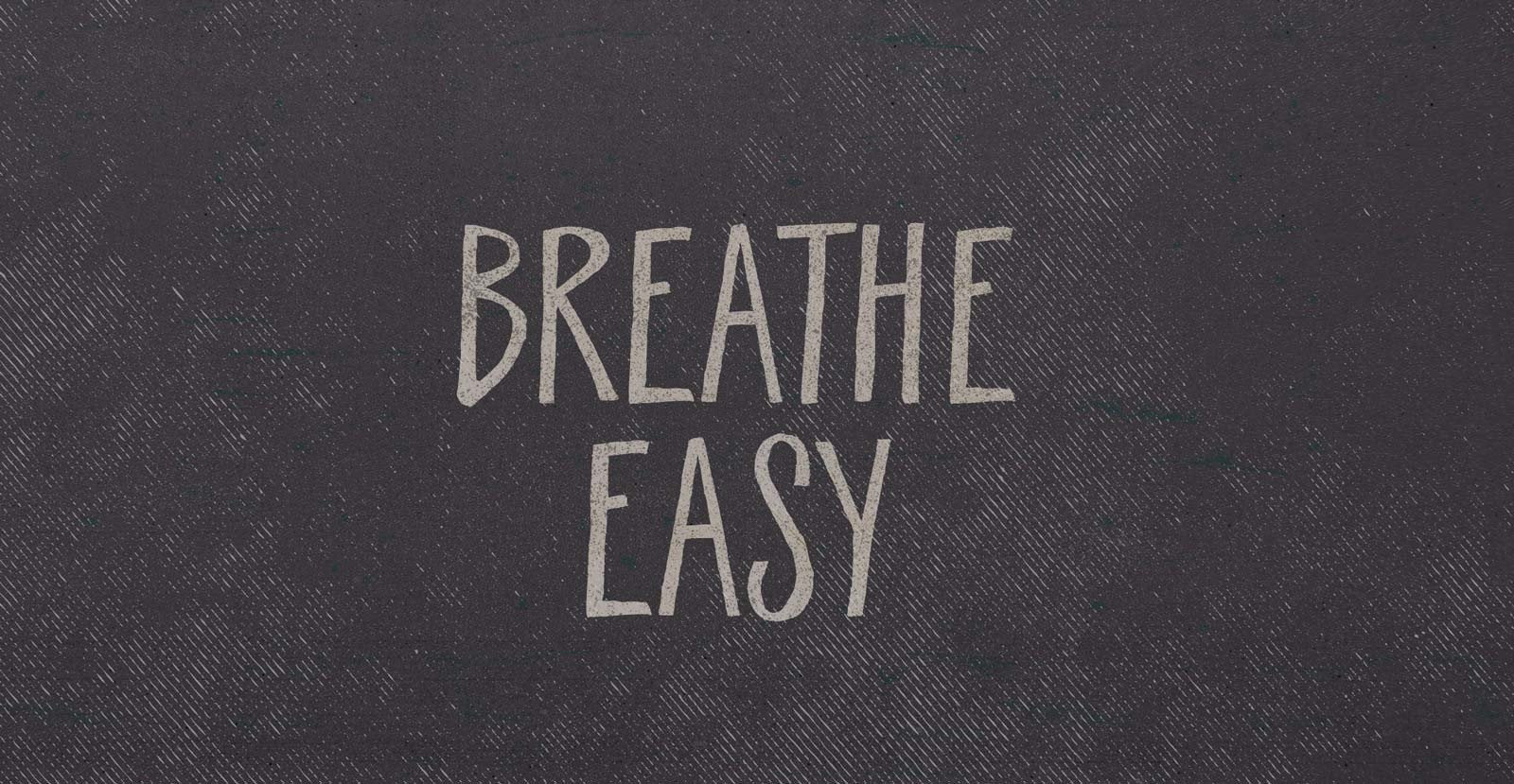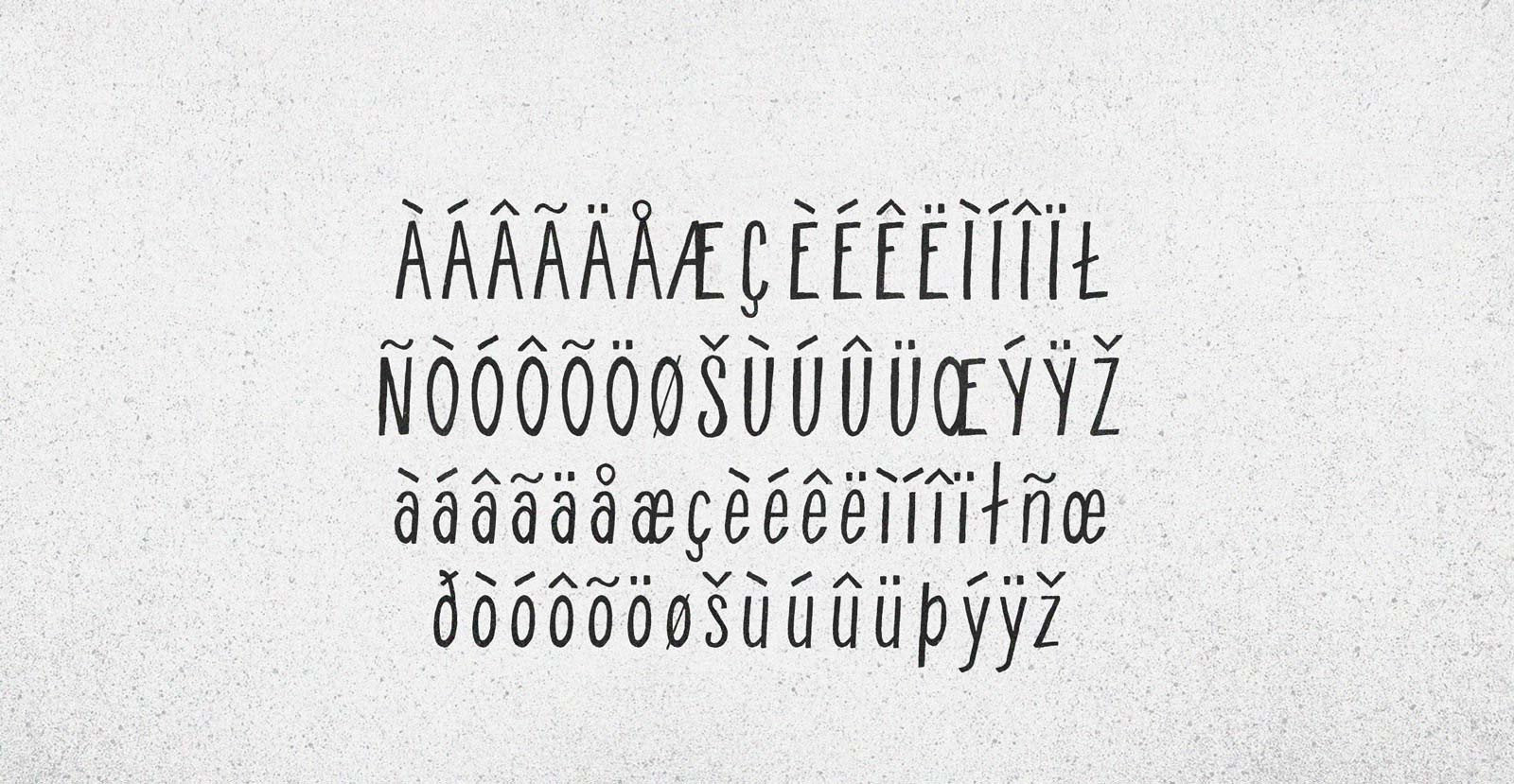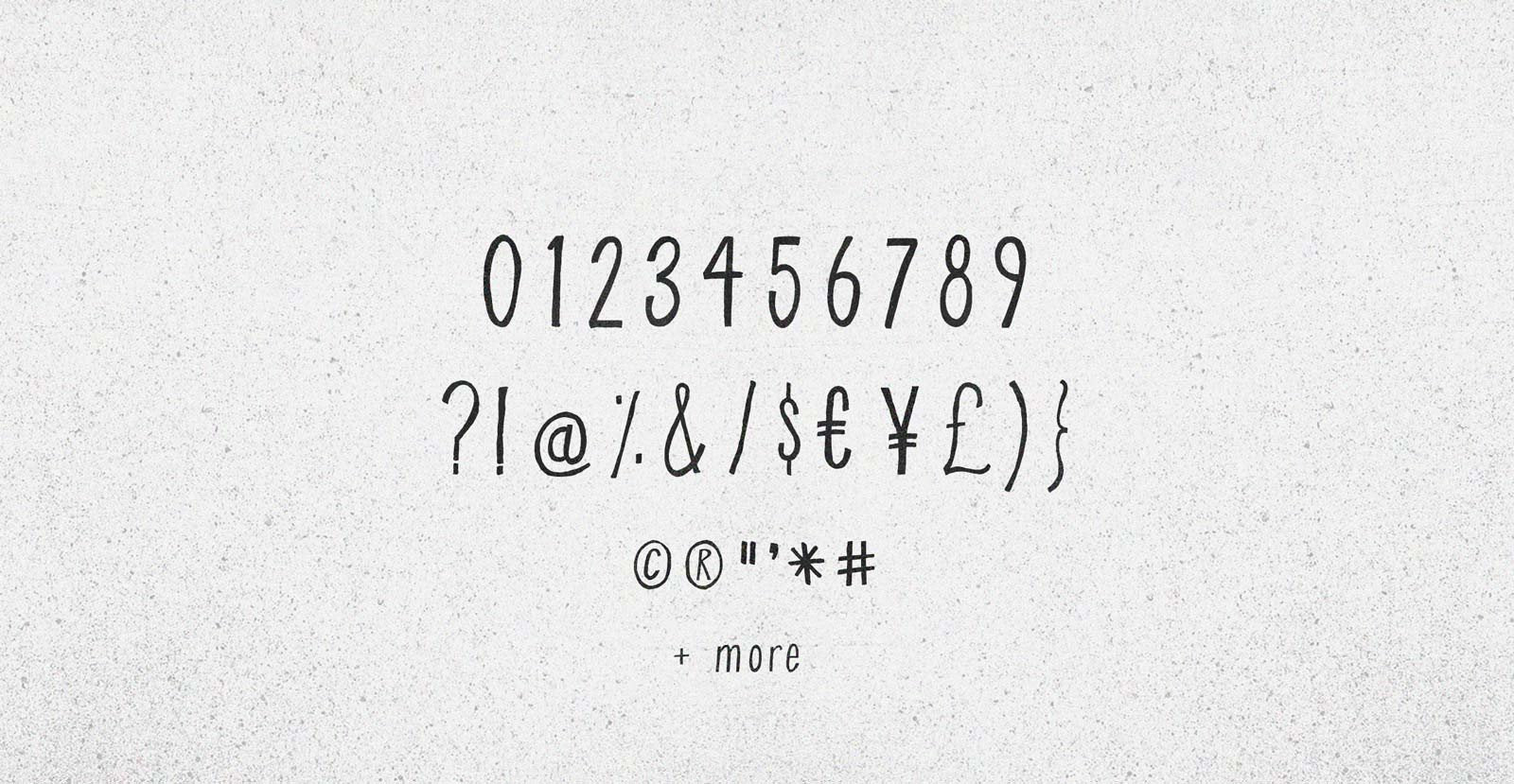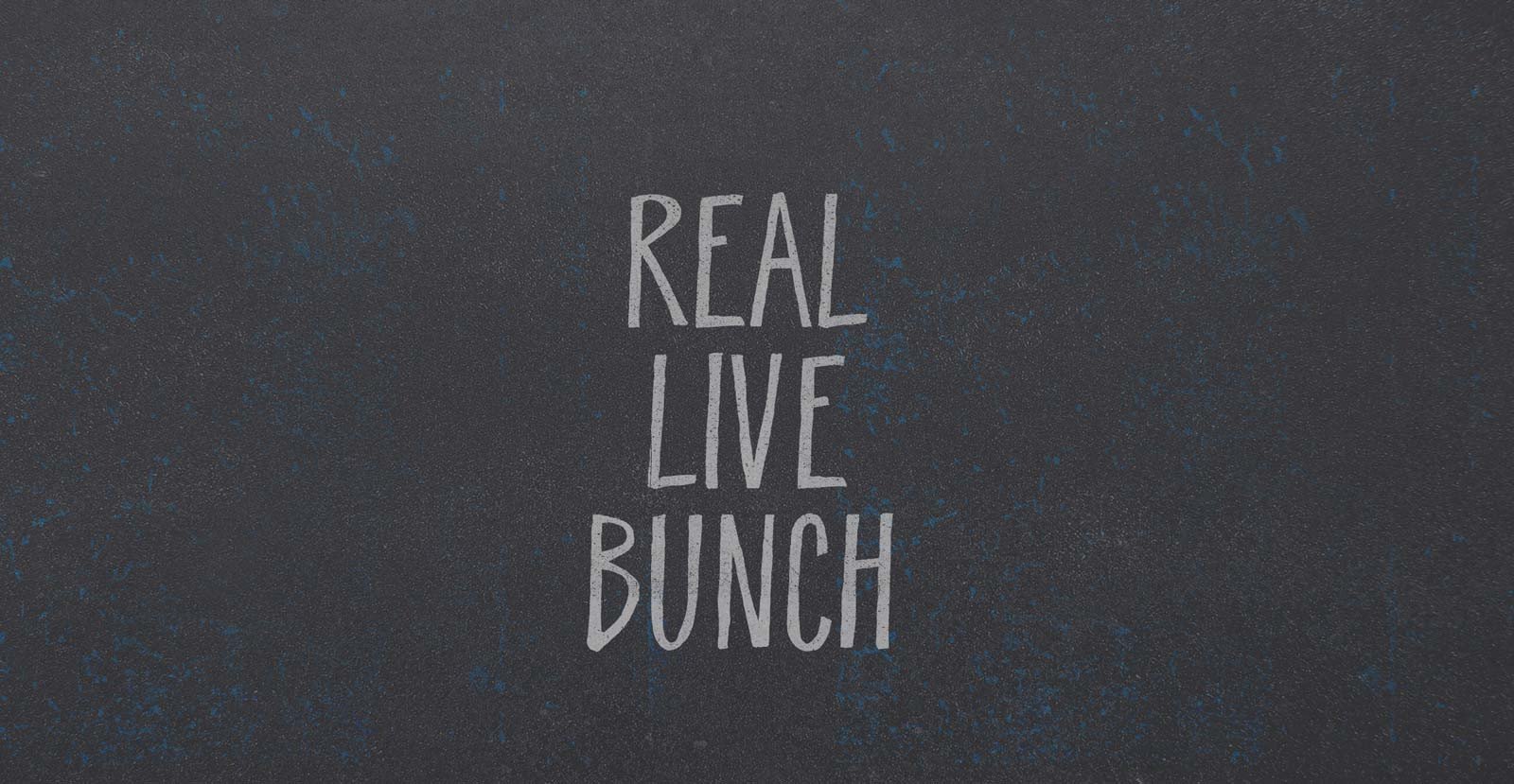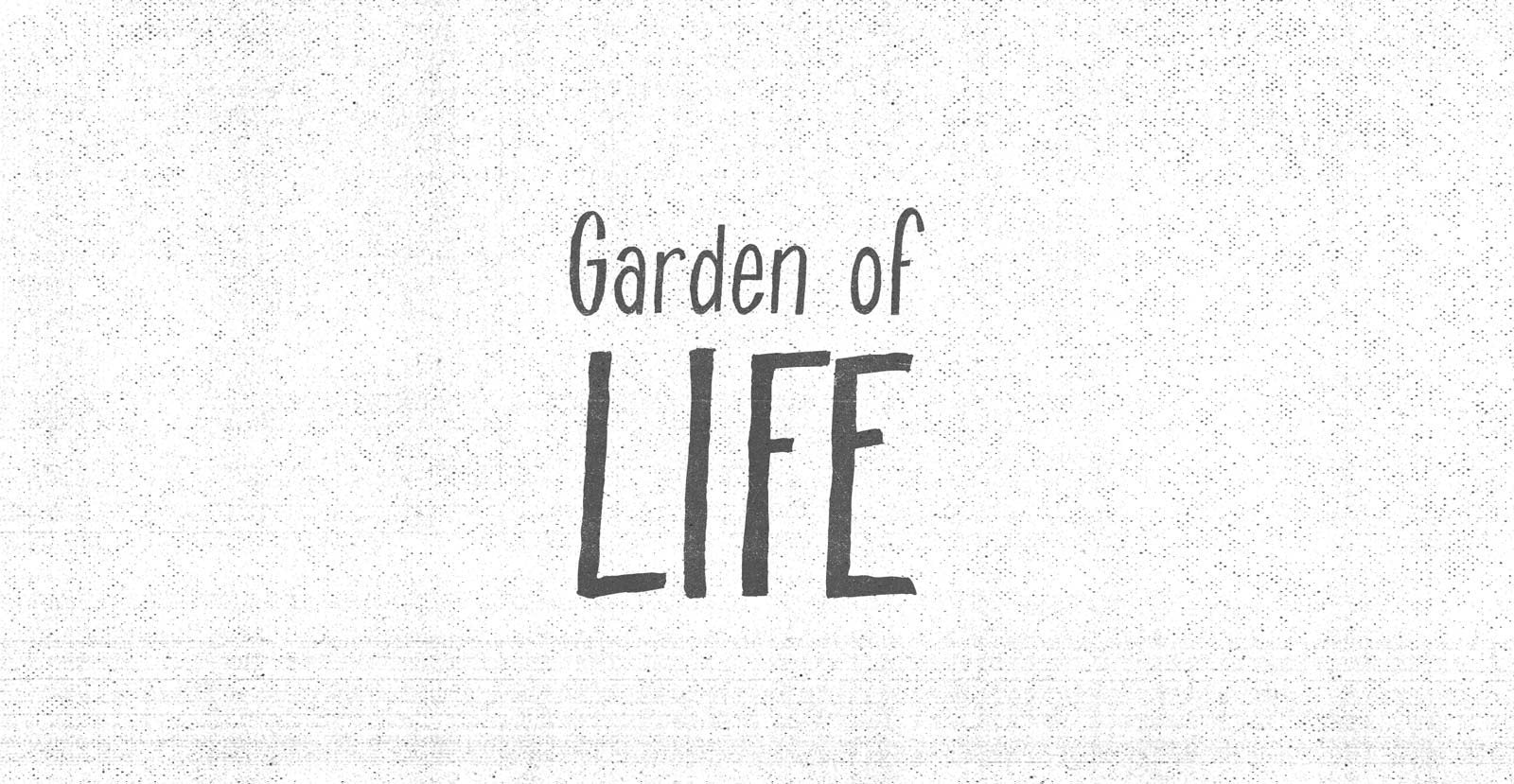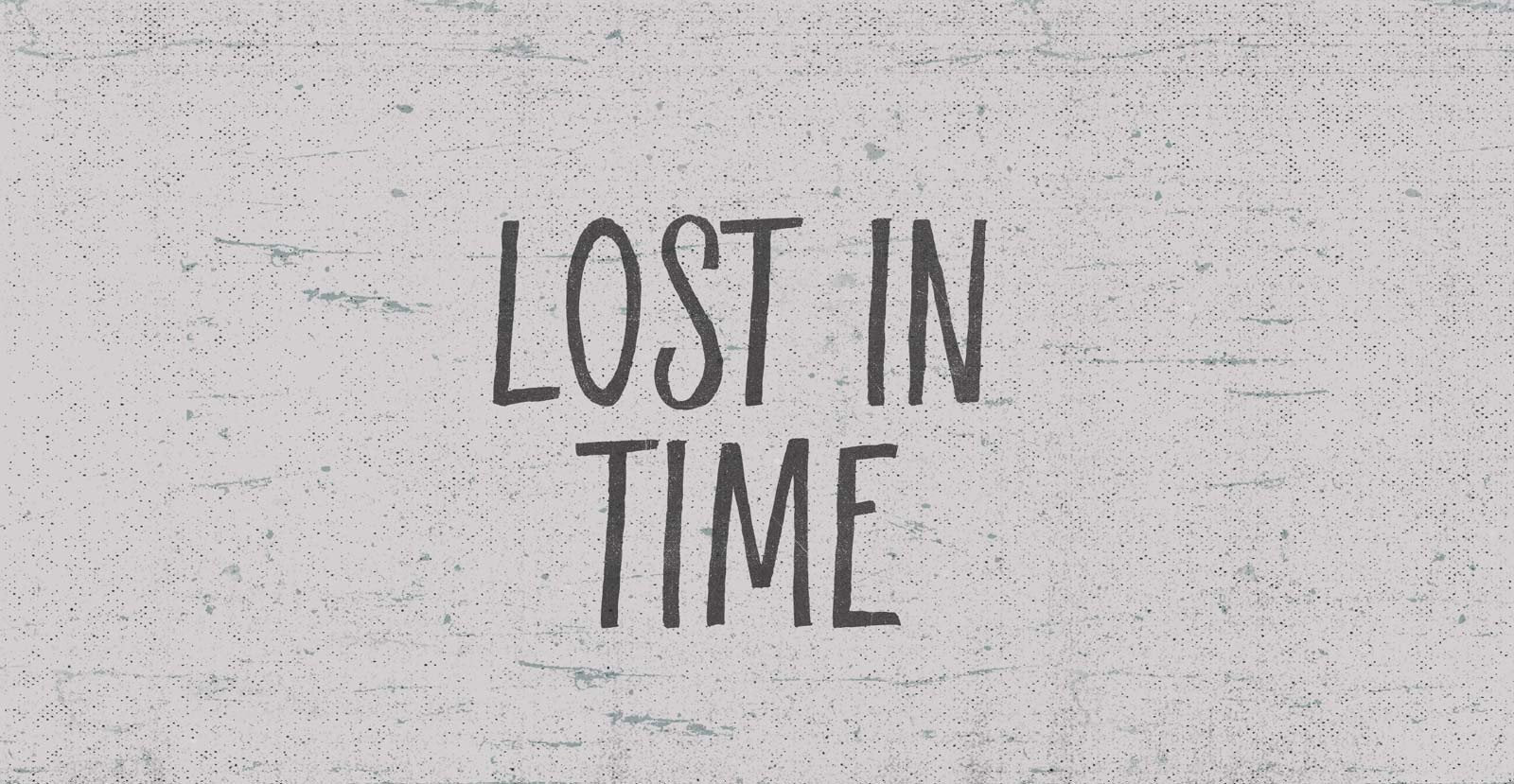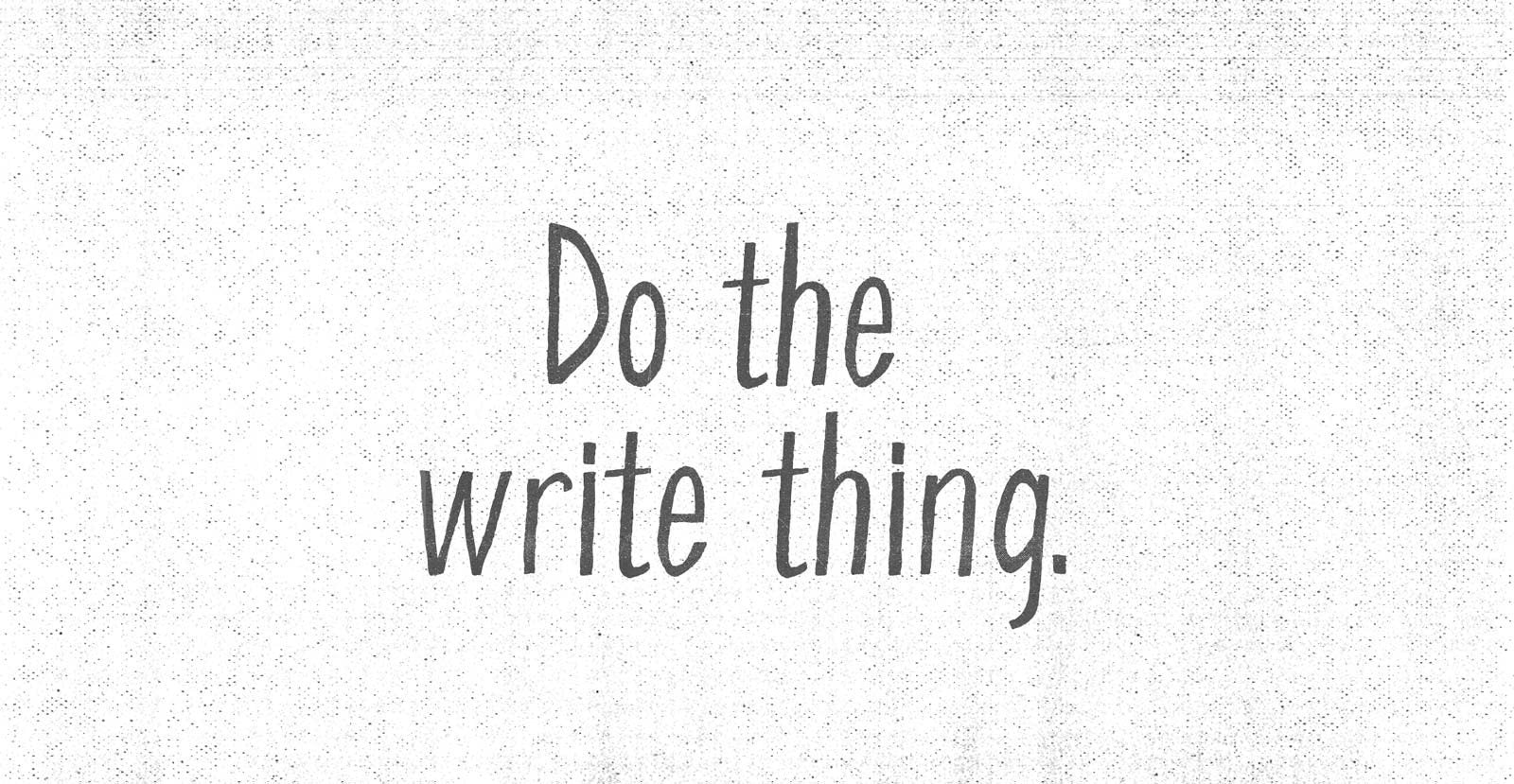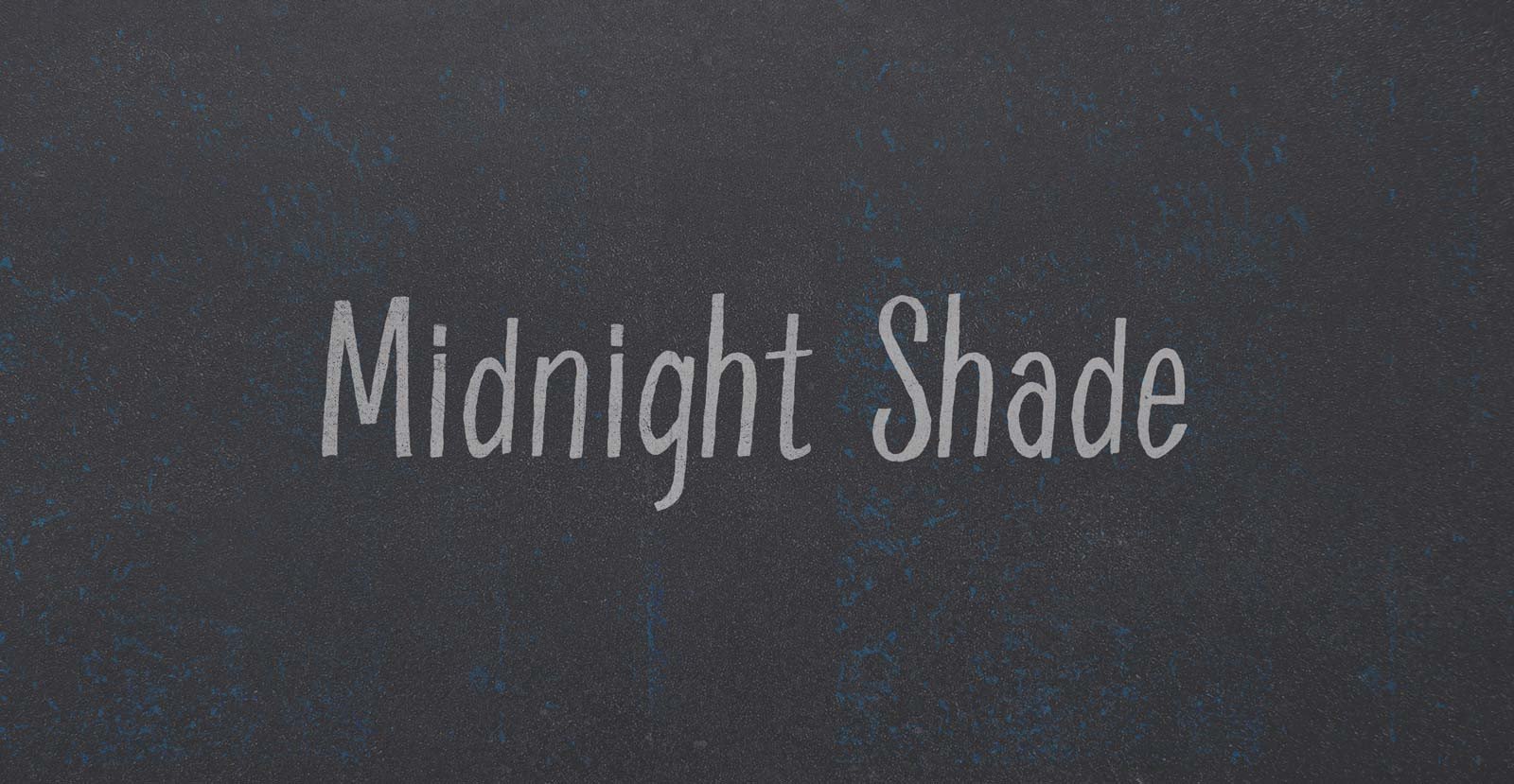
Breathe Easy
Handwritten Sans Serif Marker Font
Dawn broke above them, first greying the sky, then streaking it with color as it kissed the mesa tops. They walked up out of the gulch and the sun finally warmed their faces. Breathe Easy, he said, wreathed in steam, in fact breathing hard.